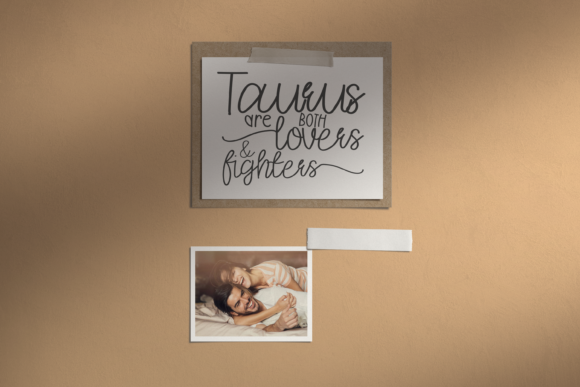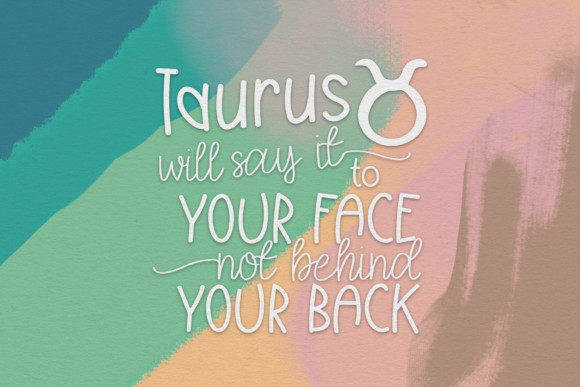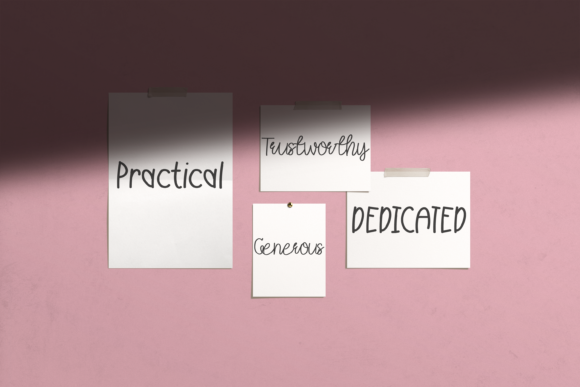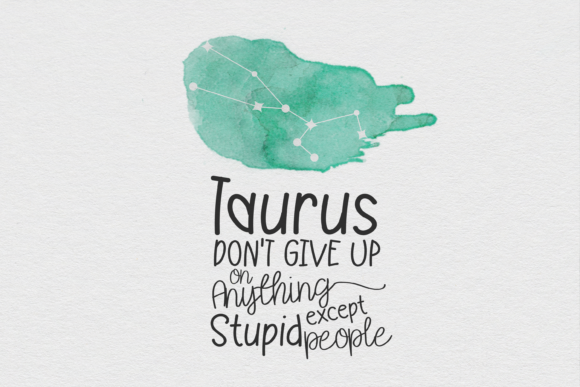
Introducing the Generous Taurus Duo Font: Elevate Your Designs with Elegance and Playfulness
In the world of typography, finding the perfect font duo that combines both style and versatility can be a daunting task. However, for designers and crafters looking to add a touch of sophistication and whimsy to their projects, the Generous Taurus Duo Font is an exceptional choice. This remarkable font package consists of two beautifully designed fonts that are crafted to complement each other perfectly, offering a wide range of creative possibilities.
The Perfect Pair: Understanding the Generous Taurus Duo
The Generous Taurus Duo Font is not just any ordinary font collection. It comprises two distinct fonts that, when used together or separately, can transform your designs with a chic and cheery touch. Whether you’re working on a branding project, crafting beautiful wedding invitations, or creating engaging social media content, this duo is designed to meet your diverse needs.
Design Versatility and Compatibility
The Generous Taurus Duo Font is incredibly versatile, making it suitable for a wide array of design projects. From professional branding and advertising materials to personal crafts like handmade cards and party decorations, this font duo adapts seamlessly. Its compatibility with various design software, including Adobe Photoshop, Illustrator, and Canva, ensures that you can incorporate it into your workflow with ease.
Adding a Chic and Cheery Touch to Your Crafts
What sets the Generous Taurus Duo apart is its ability to add a unique blend of elegance and playfulness to any project. The fonts’ stylish and modern aesthetic can instantly elevate the visual appeal of your designs, making them stand out in a crowded digital landscape. Whether you’re aiming for a sophisticated look or a more whimsical feel, this font duo provides the perfect foundation.
Why Choose the Generous Taurus Duo Font?
- Complementary Fonts: The duo is specifically designed to work well together, offering a harmonious look that can enhance your design’s overall aesthetic.
- Versatile: Suitable for various projects, from professional designs to personal crafts.
- Unique Style: Adds a chic and cheery touch to elevate your designs.
The Generous Taurus Duo Font is a remarkable addition to any designer’s or crafter’s toolkit. Its combination of style, versatility, and ease of use makes it an ideal choice for those looking to infuse their projects with a touch of elegance and playfulness. By incorporating this font duo into your designs, you can ensure that your work stands out with a unique and captivating aesthetic. Explore the creative possibilities with the Generous Taurus Duo Font and discover how it can transform your designs.
Whether you’re a seasoned designer or a crafting enthusiast, the Generous Taurus Duo Font is sure to inspire your creativity and help you achieve your design goals with style and sophistication.